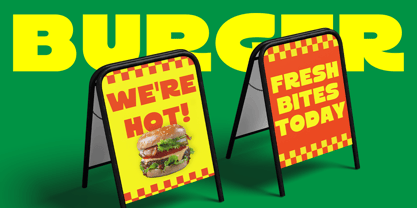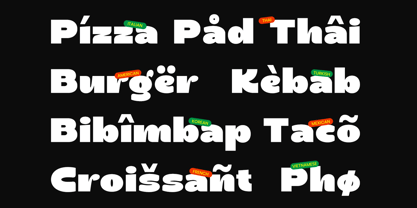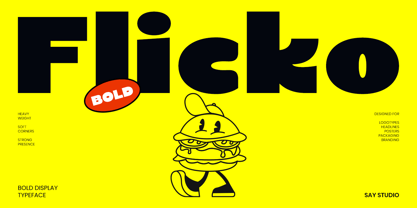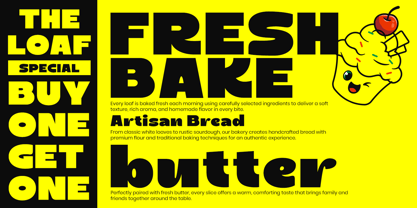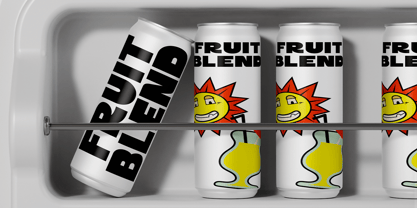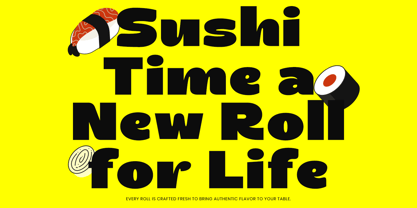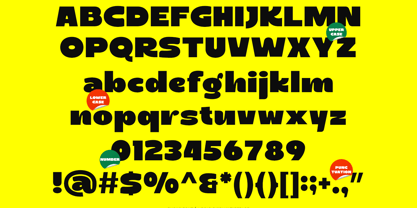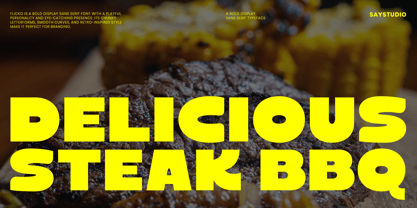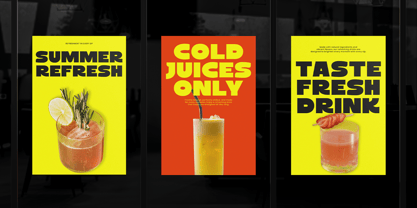
Flicko
by Say Studio
Flicko is a bold chunky display font designed to make every headline impossible to ignore. With its rounded shapes, thick letterforms, and playful personality, Flicko instantly brings energy to food branding, restaurant identities, packaging, posters, and modern advertising. Its friendly appearance creates a strong visual impact while remaining highly readable across print and digital media.
Perfect for burger shops, cafés, beverage brands, snack packaging, street food promotions, menus, logos, social media graphics, YouTube thumbnails, editorial layouts, and eye-catching headlines, Flicko delivers a fresh and confident look that grabs attention in seconds.
Whether you're creating branding for a trendy restaurant, designing promotional campaigns, or producing fun merchandise, Flicko gives your projects a memorable and delicious visual identity.
• Regular and Italic Style
• Uppercase and Lowercase
• Number, Symbol, and Punctuation
• Multilingual Support
Designers: Mussyayin
Foundry: Say Studio